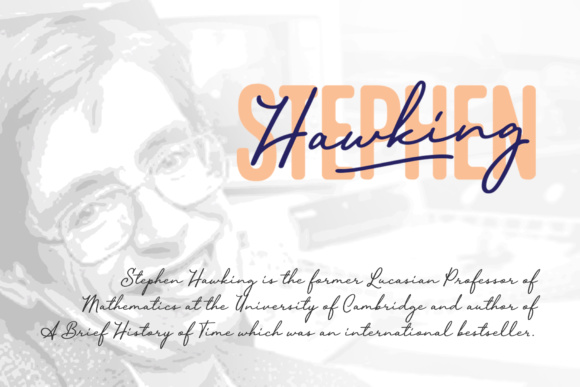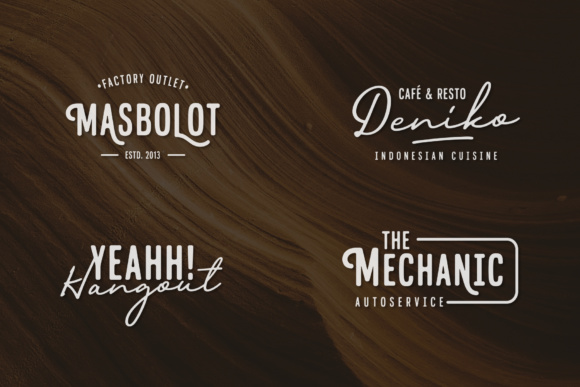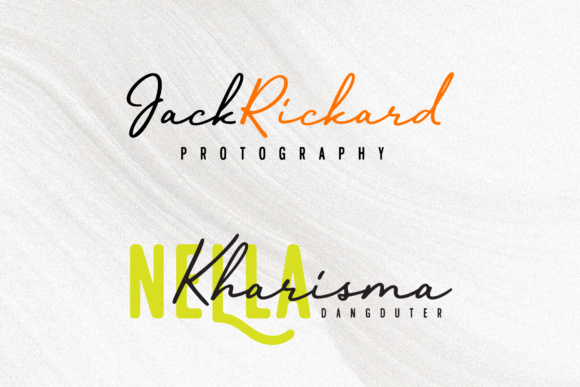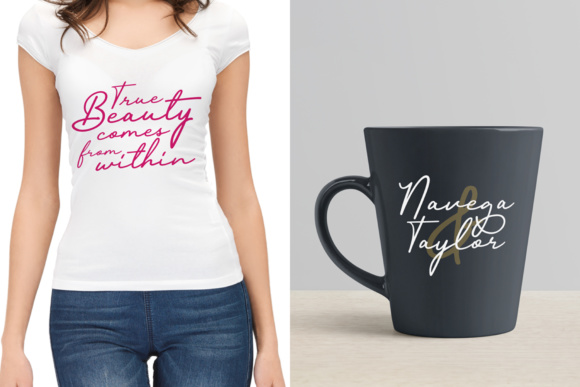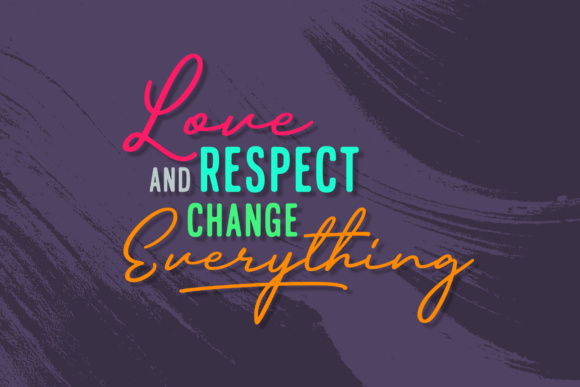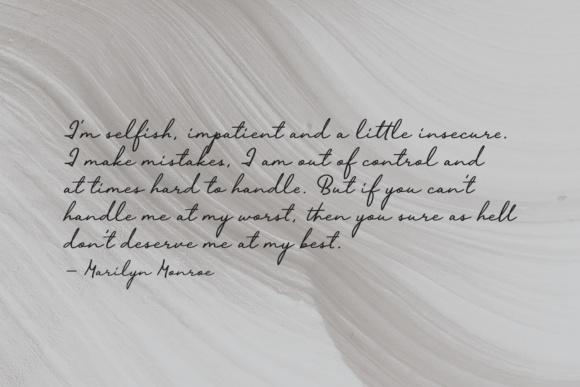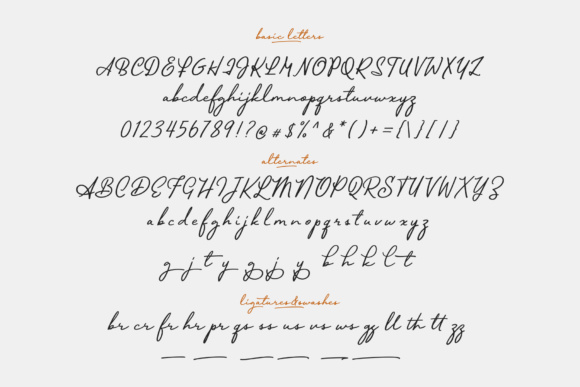
Lucyna Font
About Lucyna Font
Lucyna Script is a handwrittenduo that gives a relaxed yet beautiful style in any design. Lucyna Sans is a sans serif font specially paired with Lucyna Script. Thick but rounded shapes give a strong but not rigid impression, and these fonts can mix and match to create a casual yet classy design.